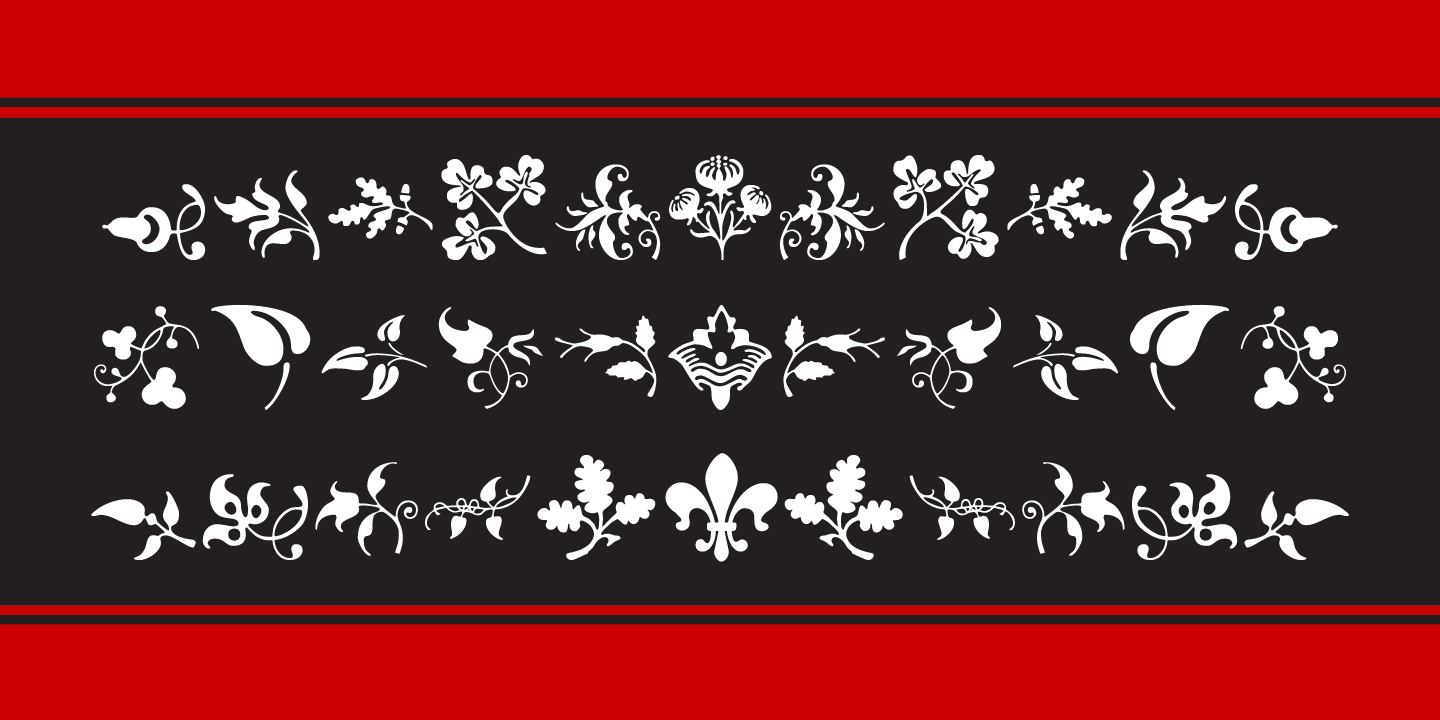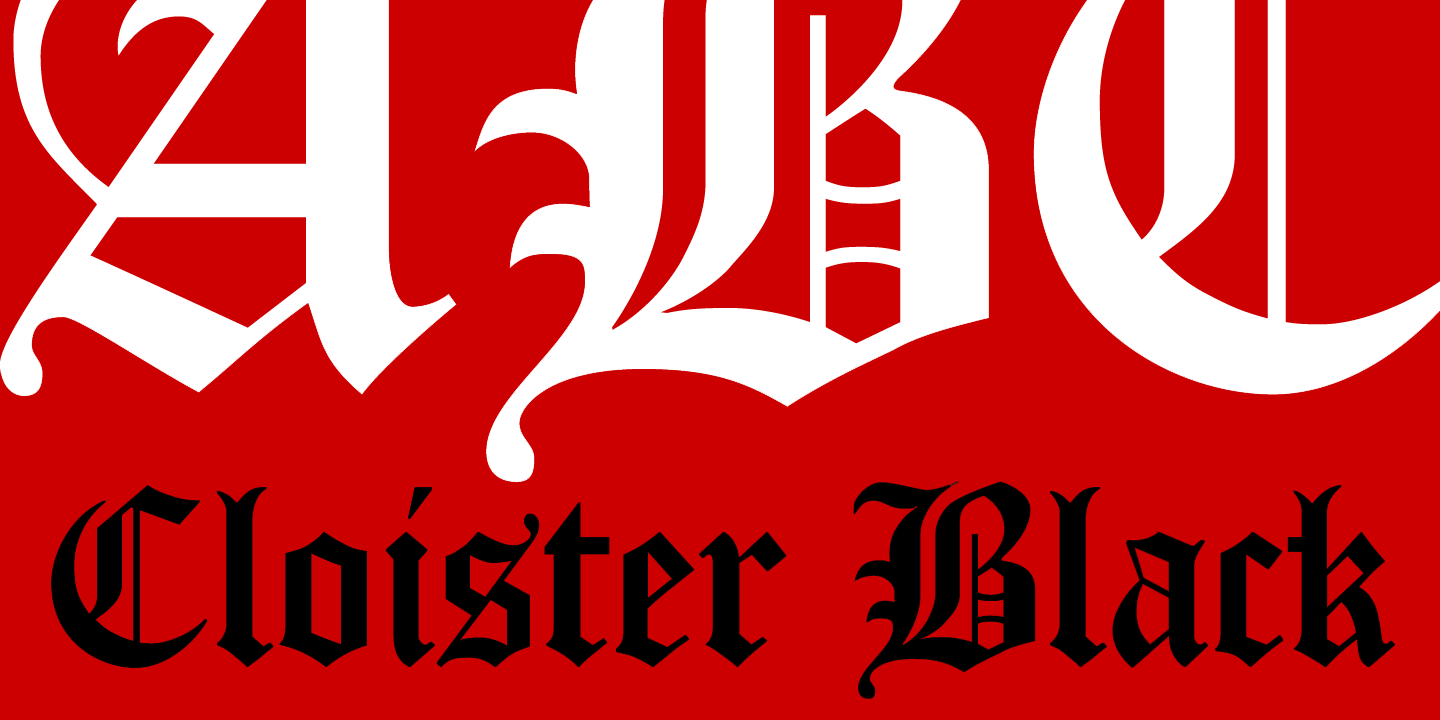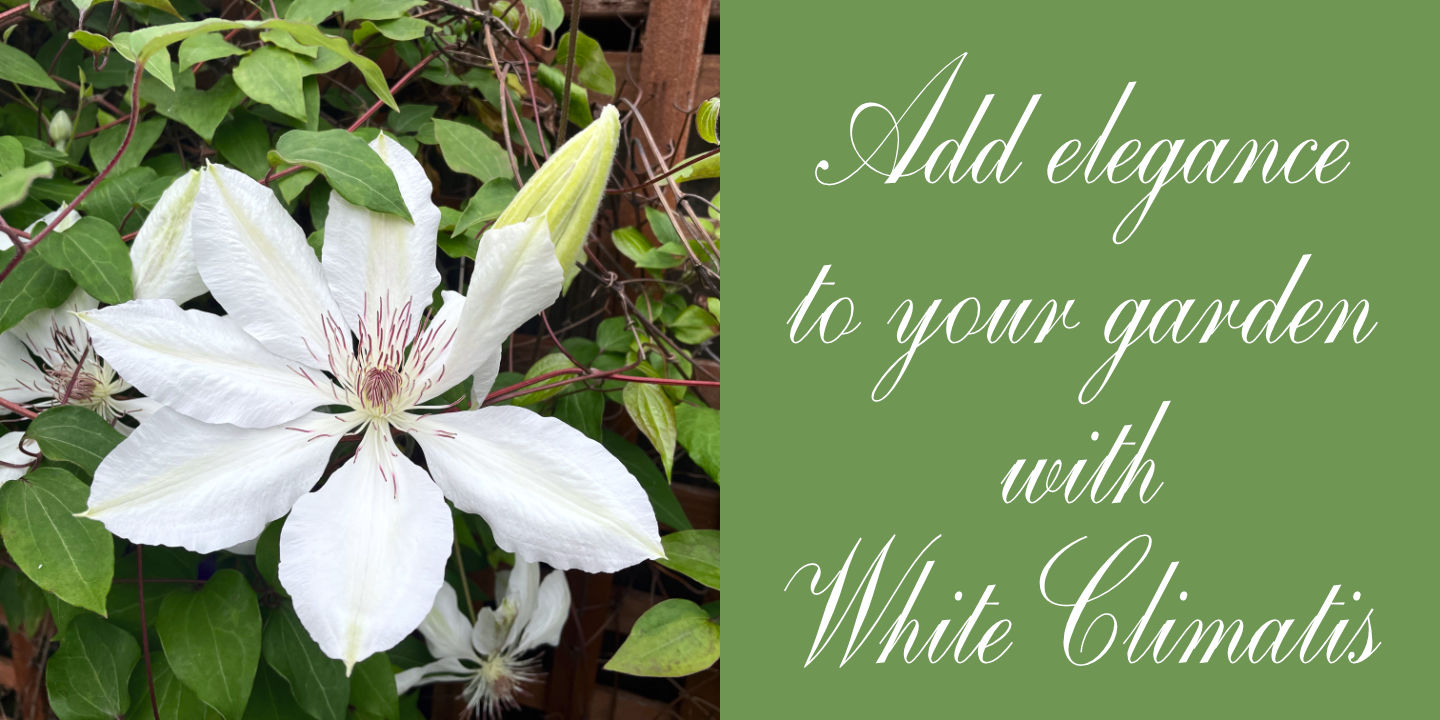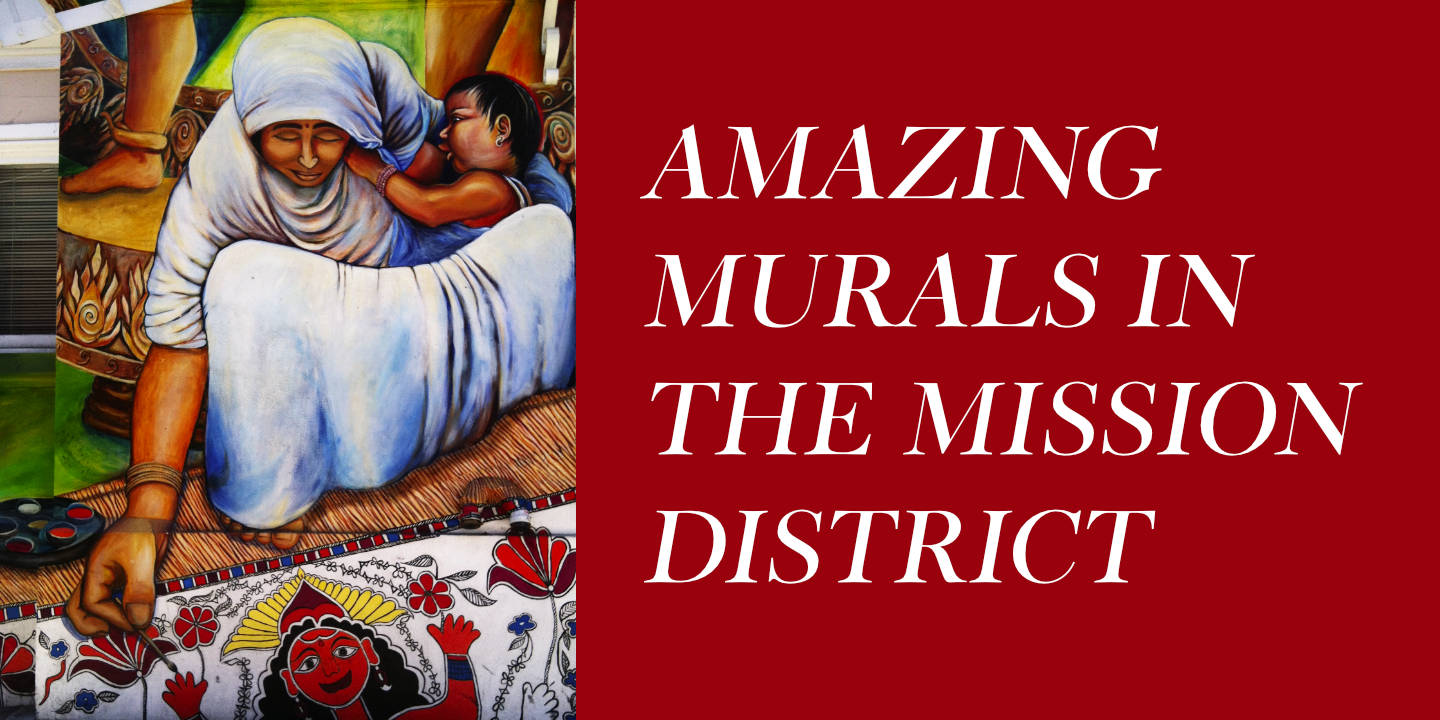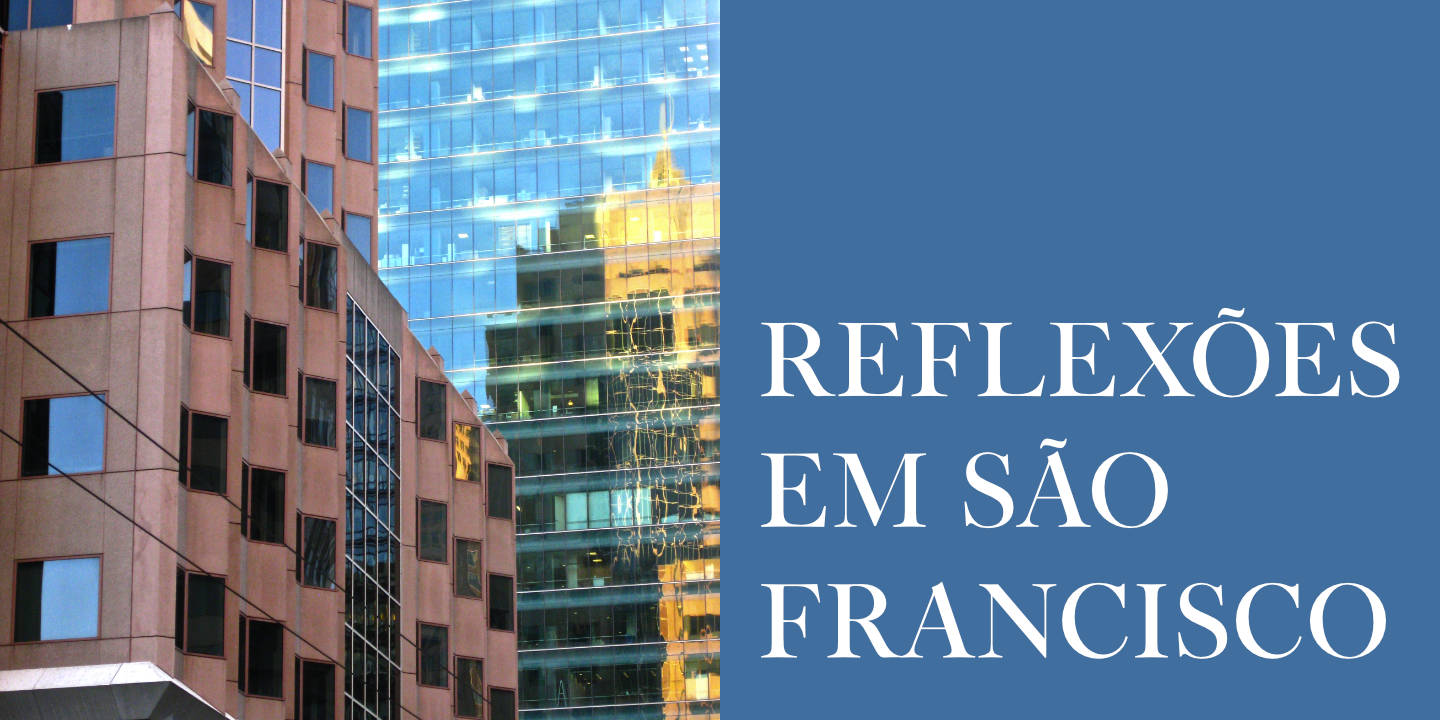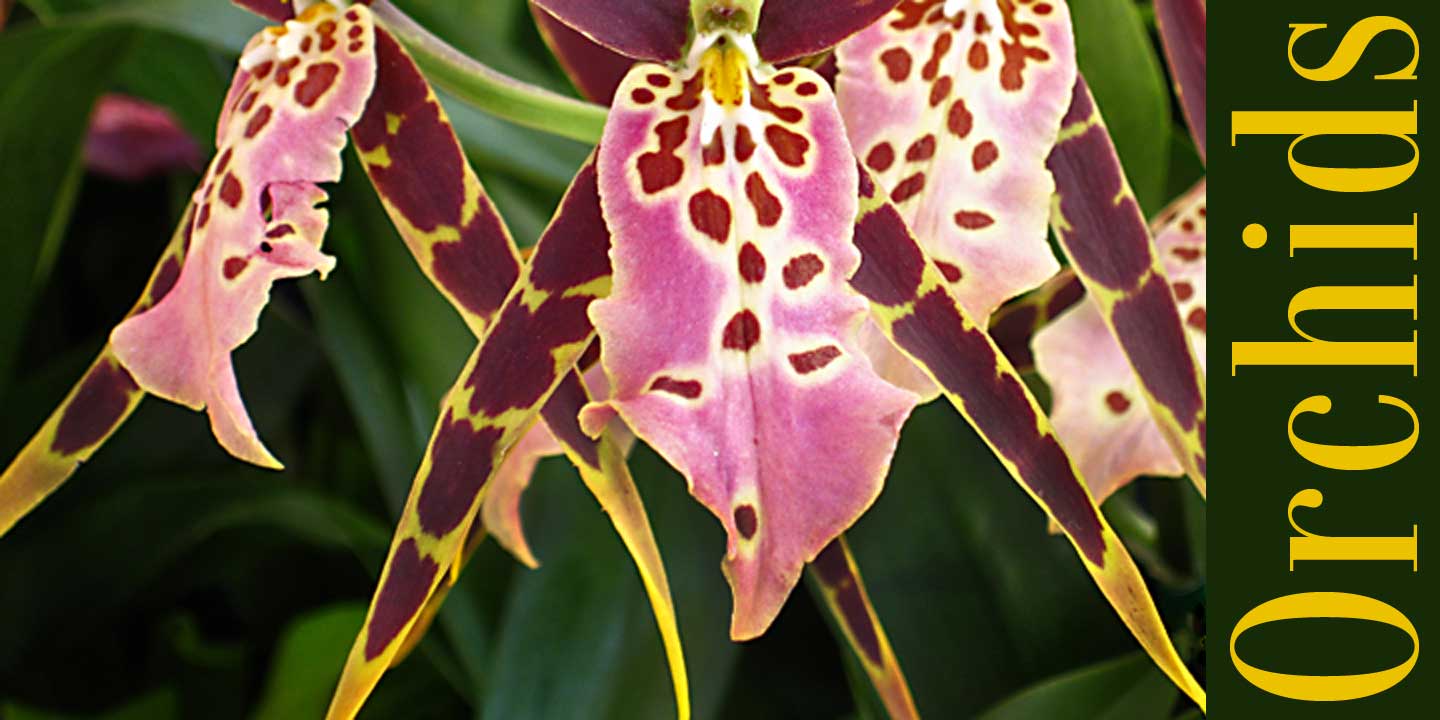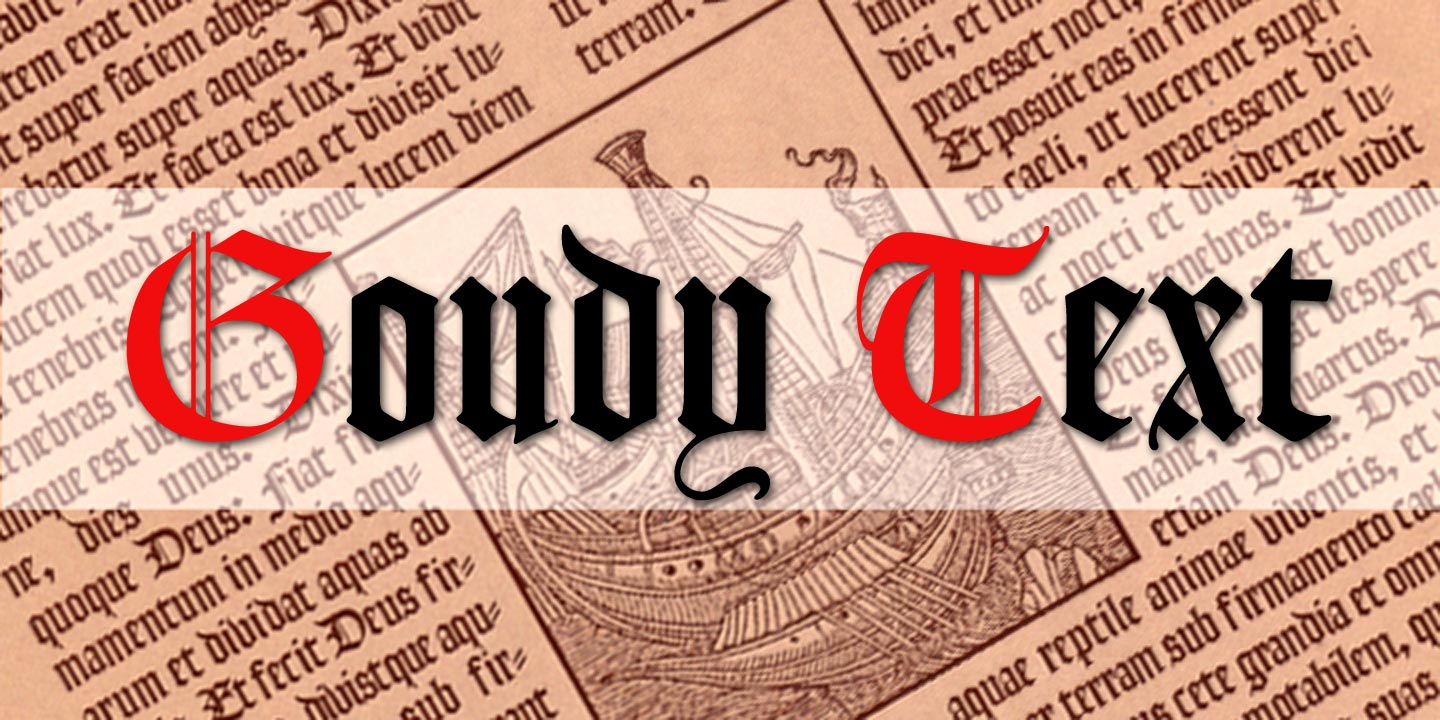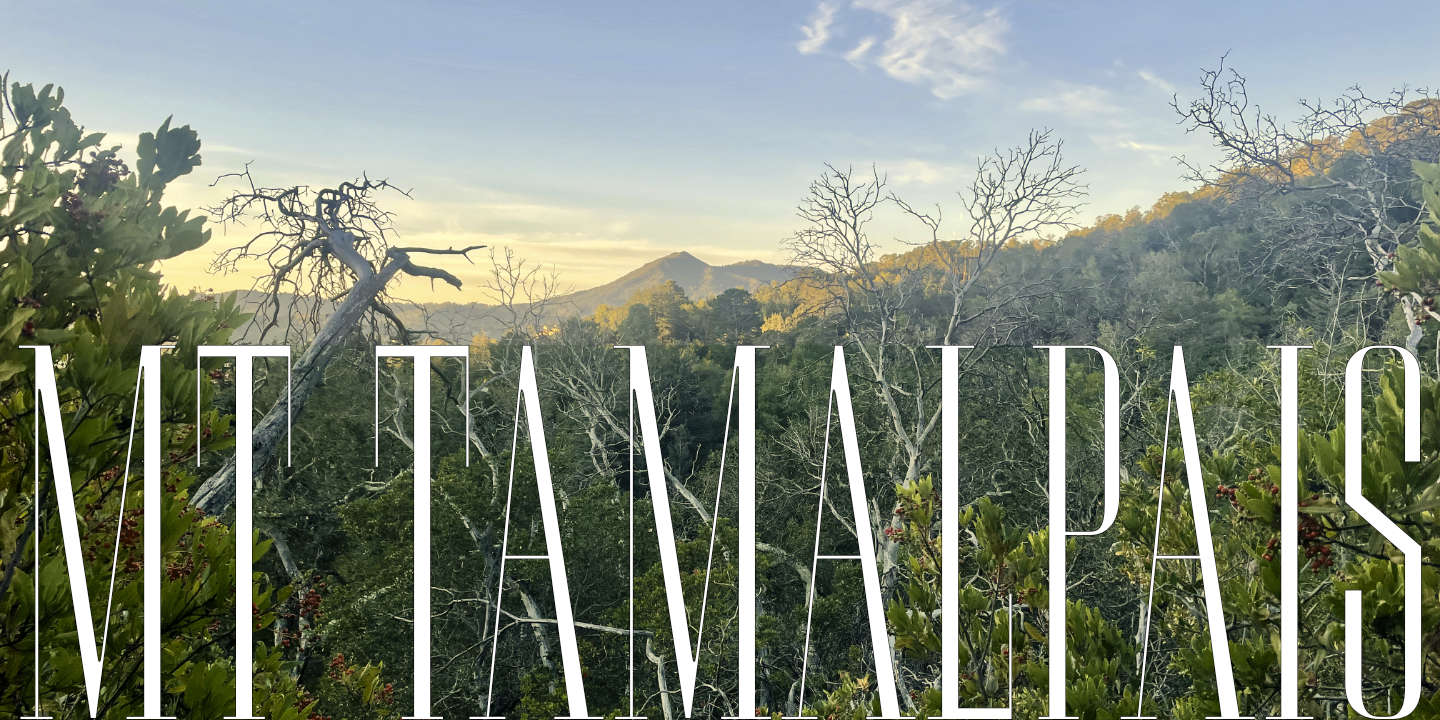
Carisma Light
Carisma™, a CastleType Original, is the perfect typeface for an understated, modern, sophisticated look. All weights of Carisma include small caps and oldstyle numerals. See also Carisma Gothic.
Carisma Regular
Carisma™, a CastleType Original, is the perfect typeface for an understated, modern, sophisticated look. All weights of Carisma include small caps and oldstyle numerals. See also Carisma Gothic.
Carisma Medium
Carisma™, a CastleType Original, is the perfect typeface for an understated, modern, sophisticated look. All weights of Carisma include small caps and oldstyle numerals. See also Carisma Gothic.
Carisma DemiBold
Carisma™, a CastleType Original, is the perfect typeface for an understated, modern, sophisticated look. All weights of Carisma include small caps and oldstyle numerals. See also Carisma Gothic.
Carisma Bold
Carisma™, a CastleType Original, is the perfect typeface for an understated, modern, sophisticated look. All weights of Carisma include small caps and oldstyle numerals. See also Carisma Gothic.
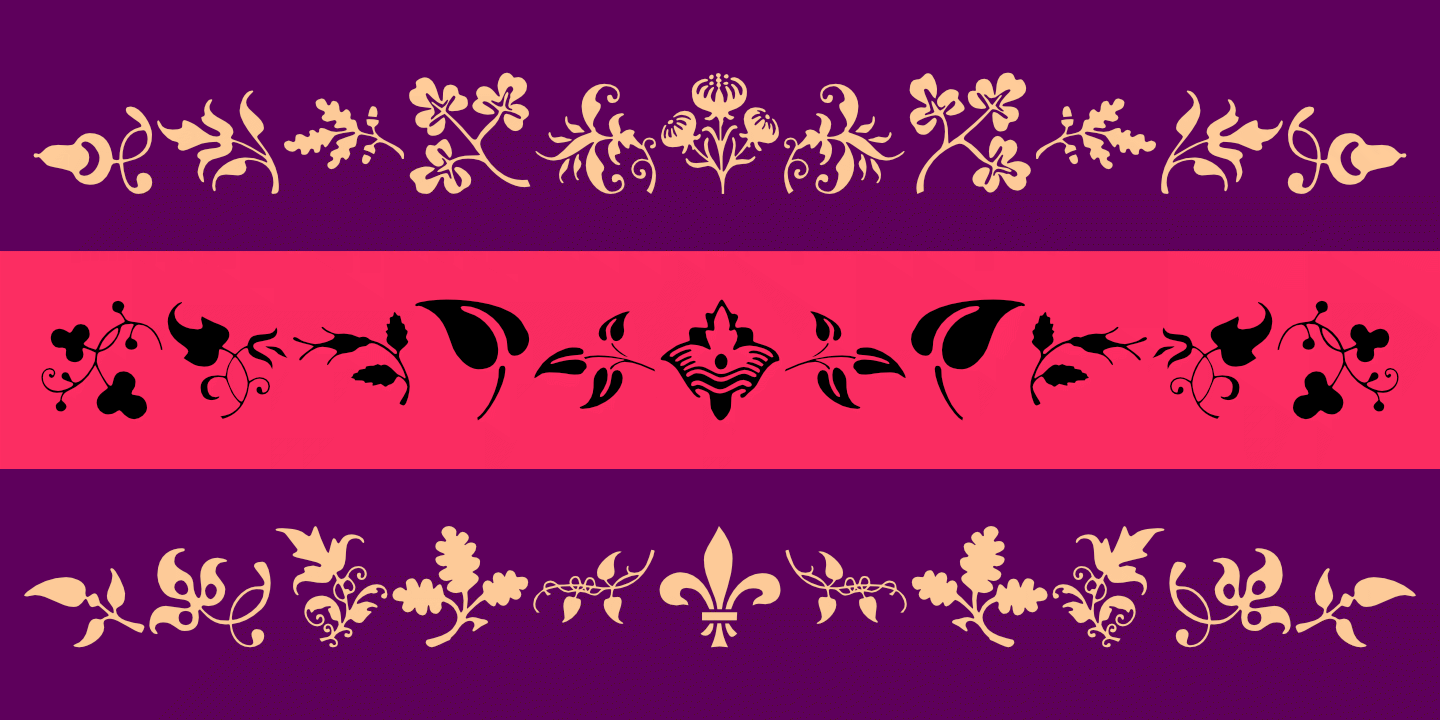
Castle Fleurons
A delightful collection of more than 200 classic fleurons. Useful for adding a tasteful accent to your documents or for creating borders. For other decorative fonts, see Afrika Borders, Afrika Motifs, Ampersands One, Ampersands Two, and Handsome.
Cloister Black
A clean-cut blackface type, originally designed by the American type designer, Morris Fuller Benton, in 1904. See also Goudy Text CT and Goudy Lombardy for other blackletter fonts.
Copperplate Script
One of the most elegant script fonts available, this design is based on calligraphic handwriting called Copperplate because of the copper plates that it was etched into for reproduction.
Cradley Title
Cradley™ was inspired by the work of William Caslon, considered by some to be the finest type designer of the Baroque era. With its classic proportions, beautifully bracketed serifs, and high contrast, Cradley is a contemporary design with a Baroque spirit.
Cradley Open
Cradley™ was inspired by the work of William Caslon, considered by some to be the finest type designer of the Baroque era. With its classic proportions, beautifully bracketed serifs, and high contrast, Cradley is a contemporary design with a Baroque spirit.
Cradley Italic
Cradley™ was inspired by the work of William Caslon, considered by some to be the finest type designer of the Baroque era. With its classic proportions, beautifully bracketed serifs, and high contrast, Cradley is a contemporary design with a Baroque spirit.
Dionisio Light Cond
Dionisio was inspired by the extremely condensed and elegant Ransahoff, but with the warmth and sensuousness of Bodoni. Dionisio brings together the best of both, making it the perfect choice where a slender, sophisticated typeface is needed.
Dionisio Regular Cond
Dionisio was inspired by the extremely condensed and elegant Ransahoff, but with the warmth and sensuousness of Bodoni. Dionisio brings together the best of both, making it the perfect choice where a slender, sophisticated typeface is needed.
Dionisio Medium Cond
Dionisio was inspired by the extremely condensed and elegant Ransahoff, but with the warmth and sensuousness of Bodoni. Dionisio brings together the best of both, making it the perfect choice where a slender, sophisticated typeface is needed.
Dionisio Bold Condensed
Vincenzo
Vincenzo™ is based on a beautiful condensed typeface from the 1920s or earlier as shown in "130 Alphabets and Other Signs"; original designer unknown. This is a "Modern" style with sharp triangular serifs, vertical stress, and high contrast between thick and thins.